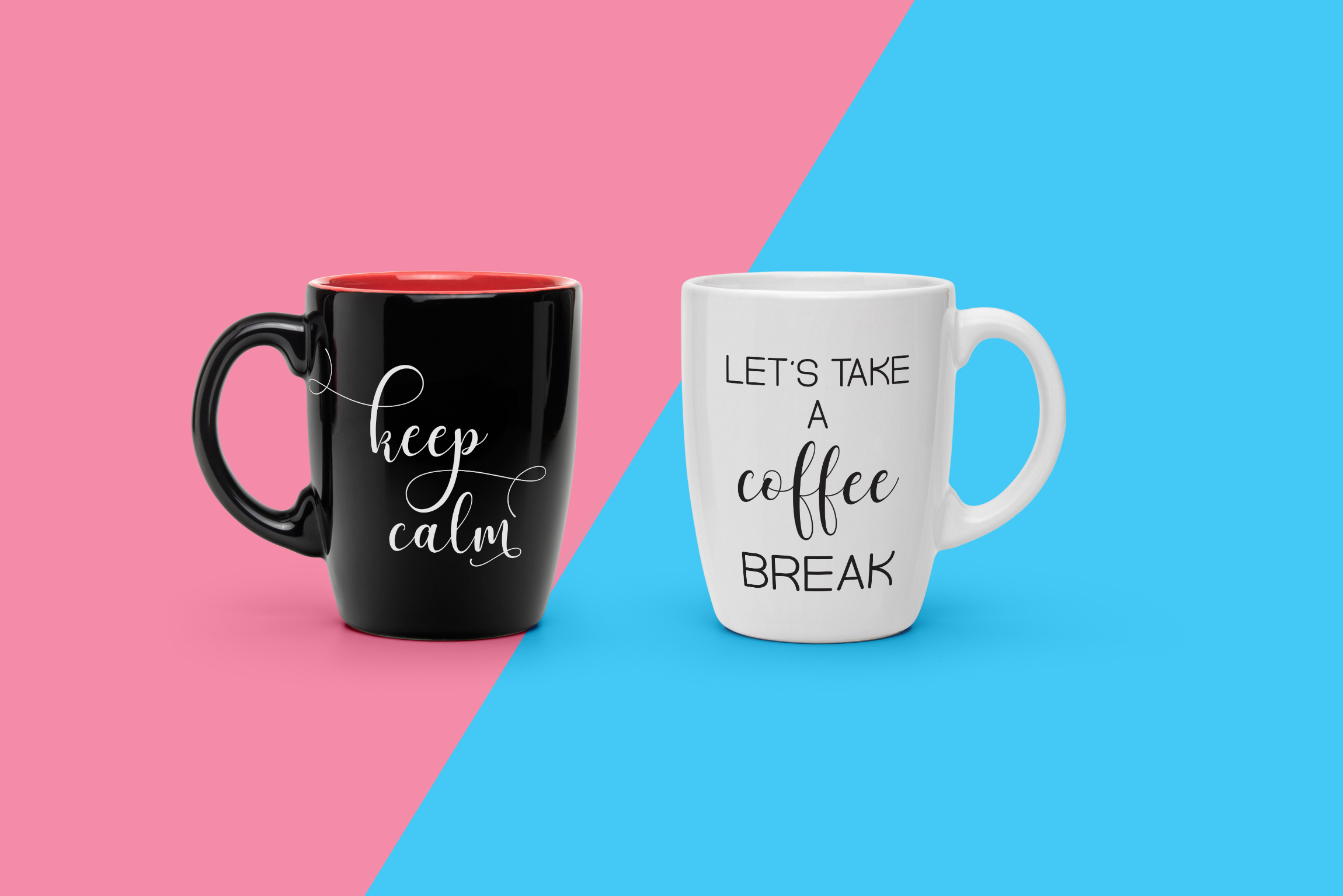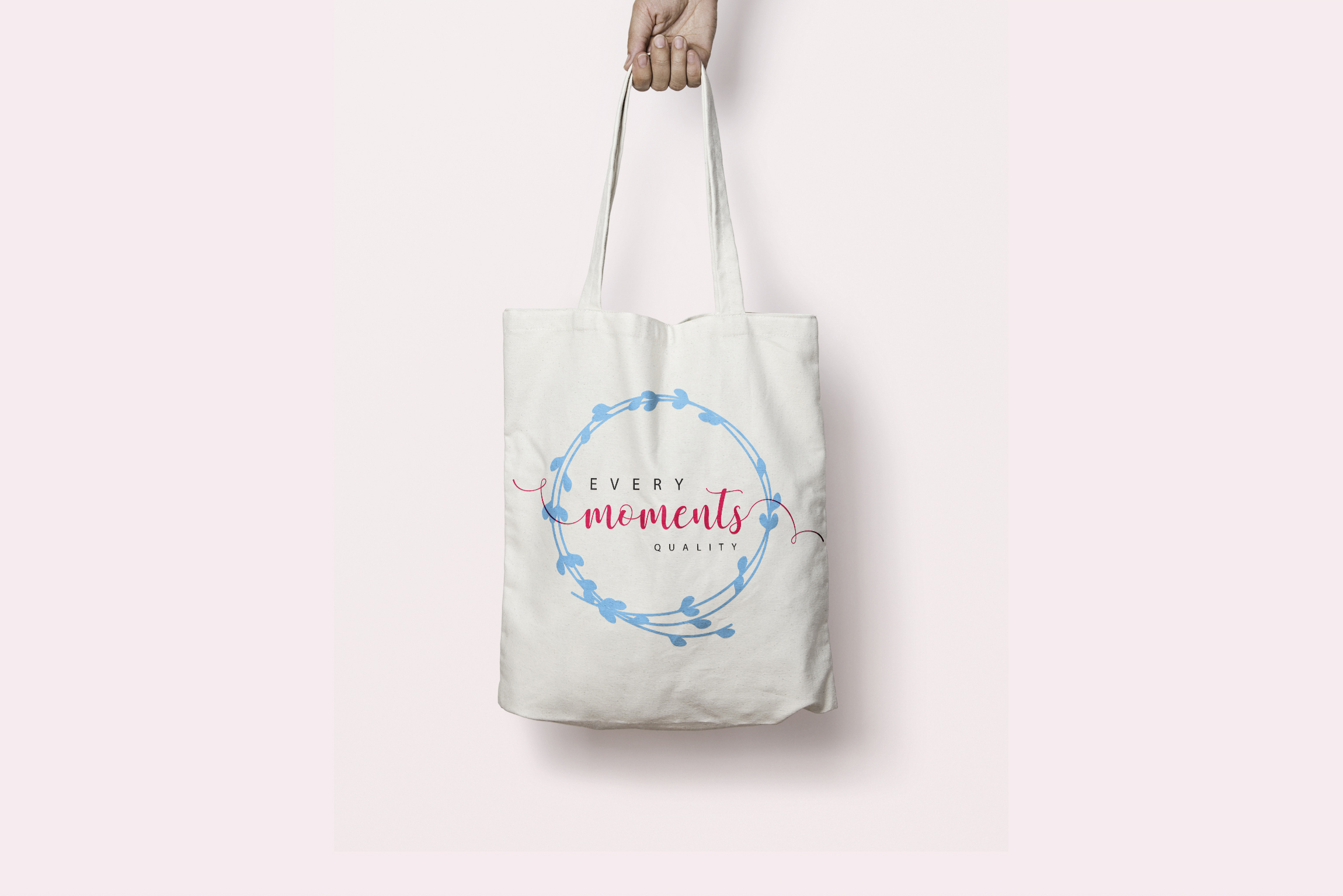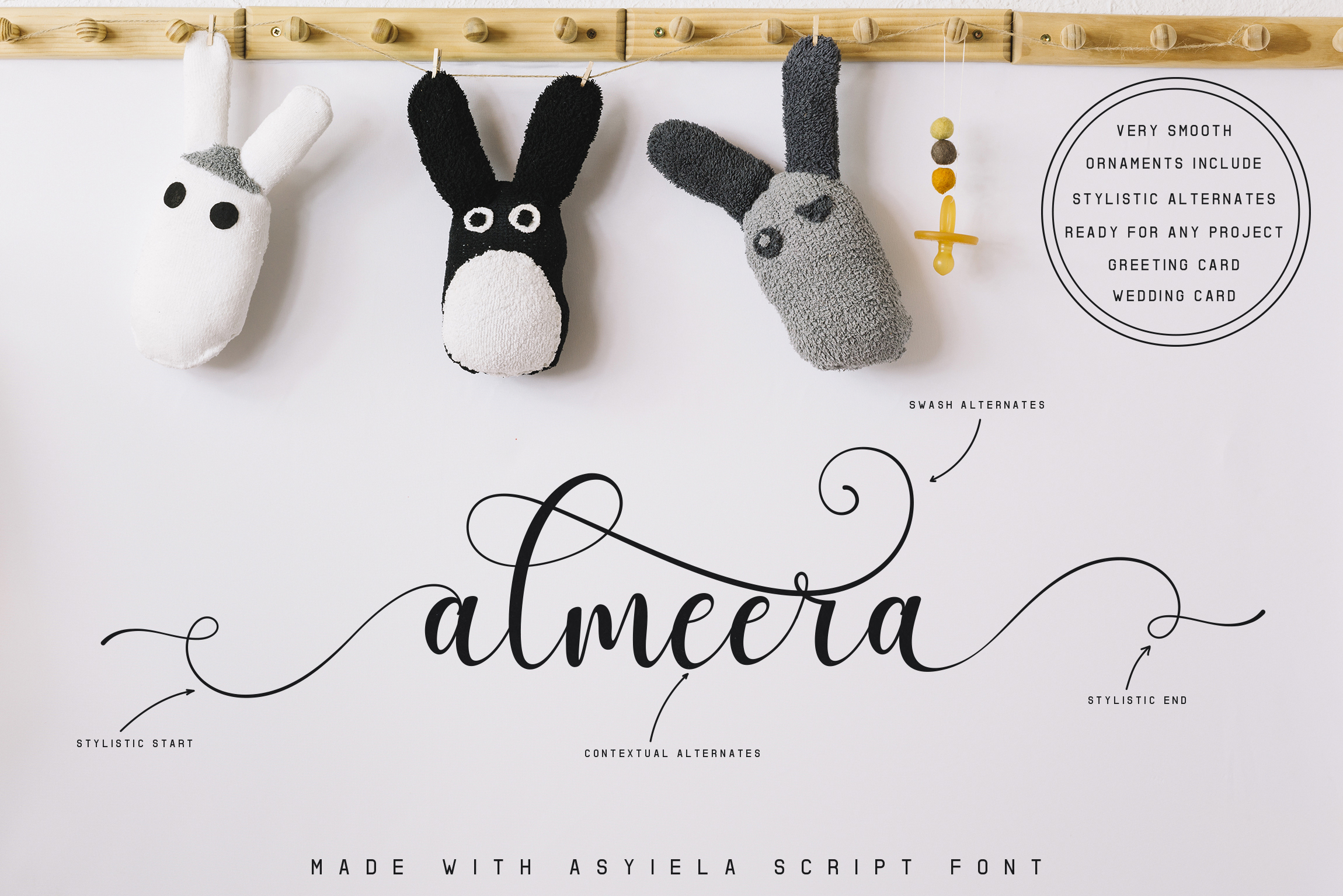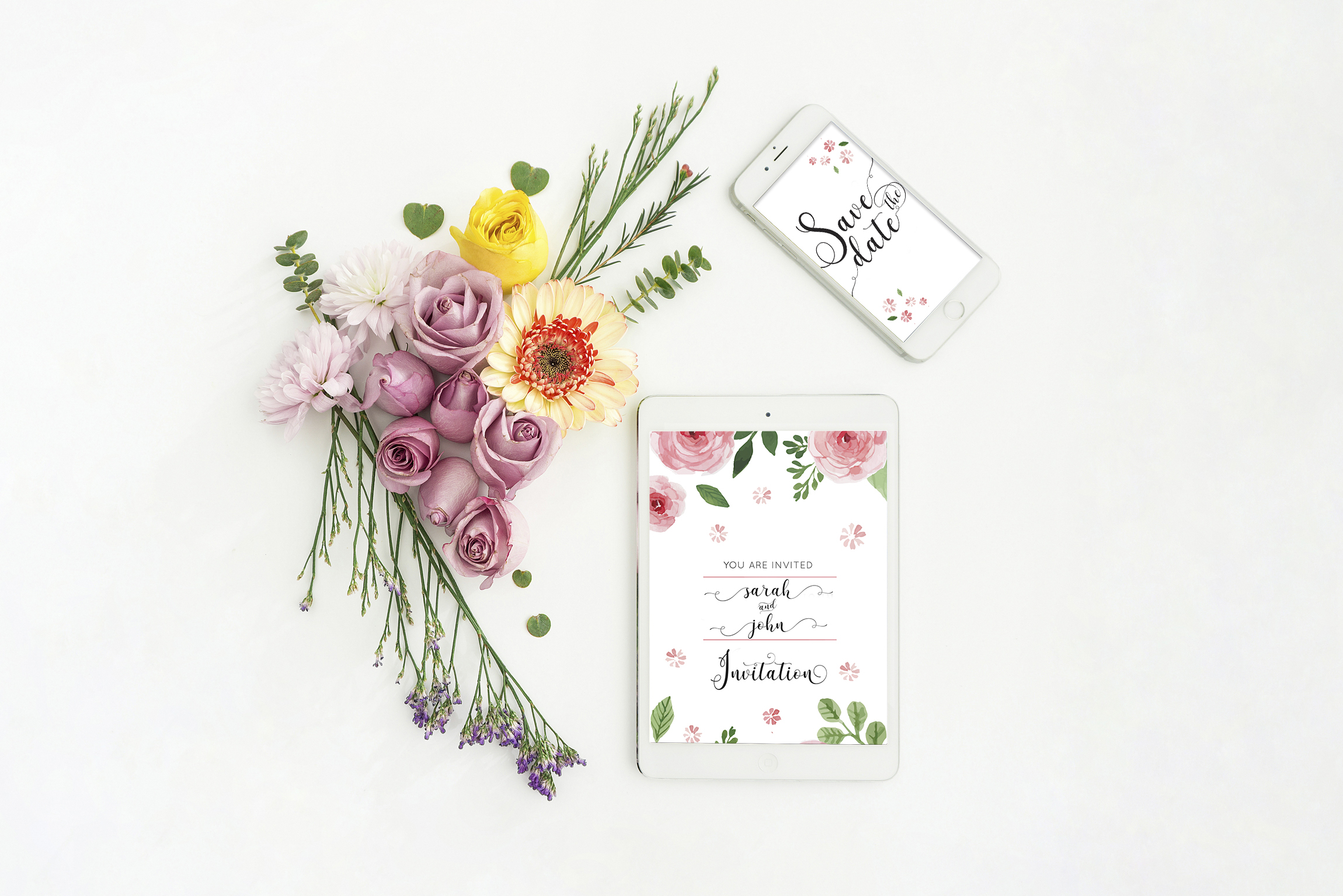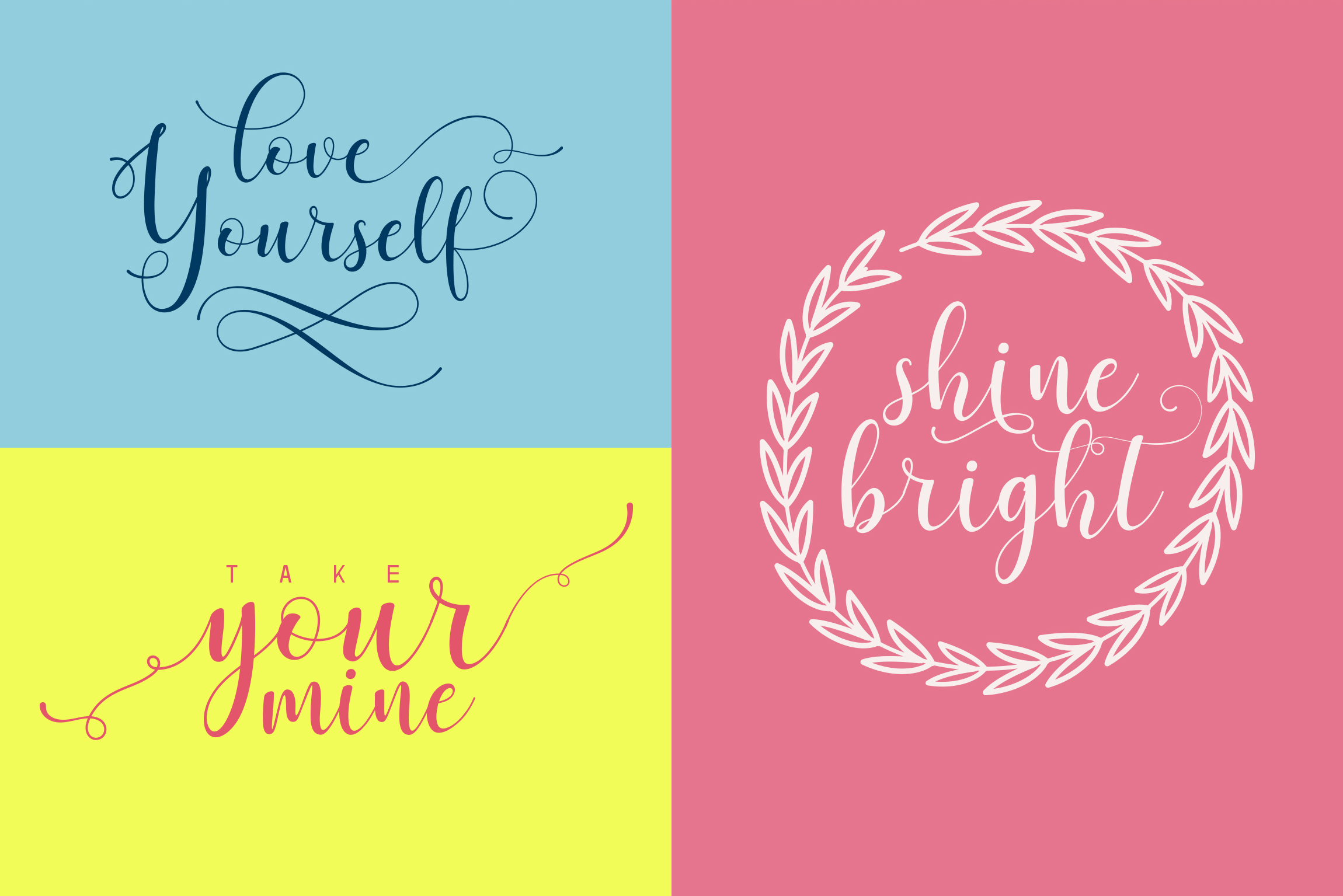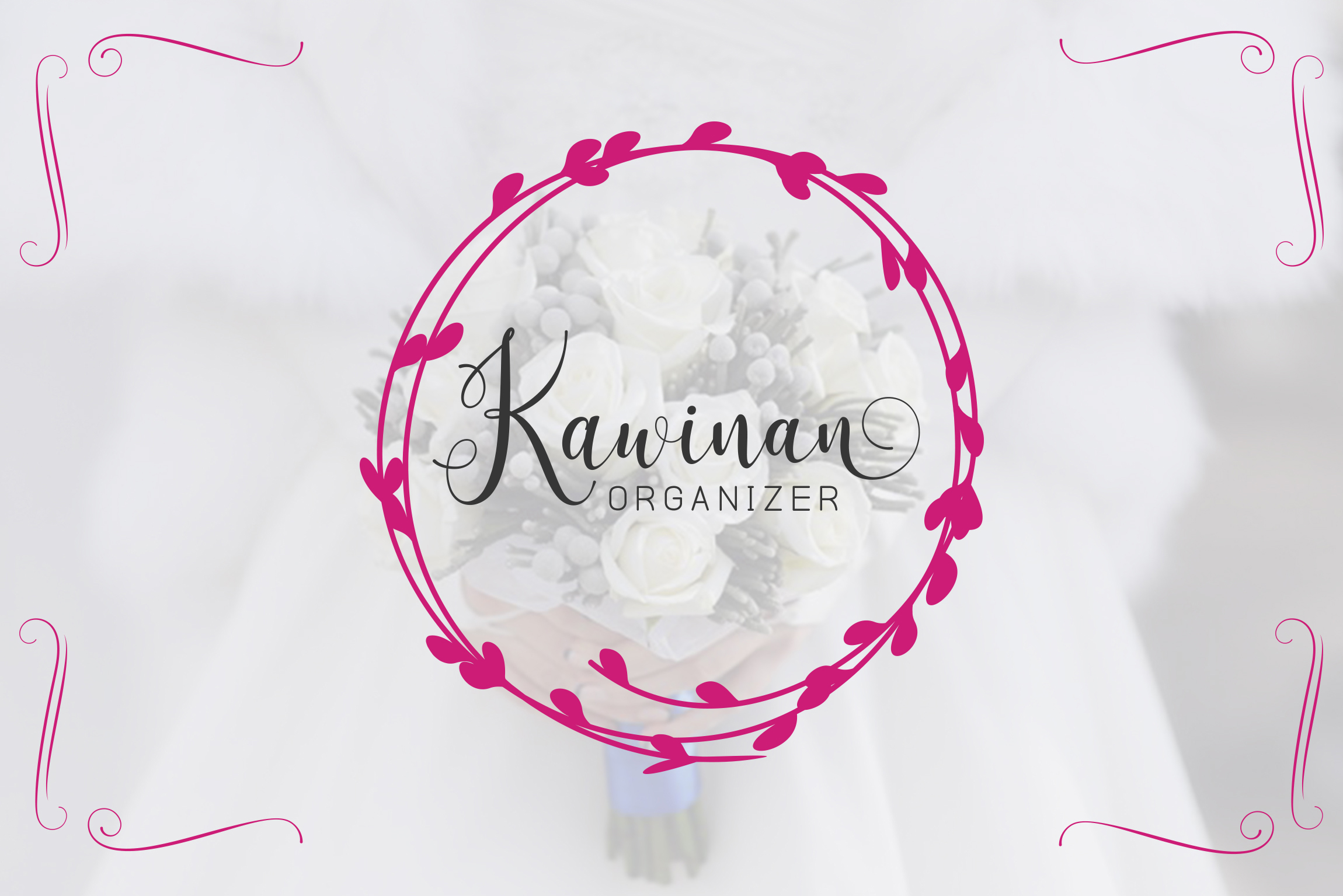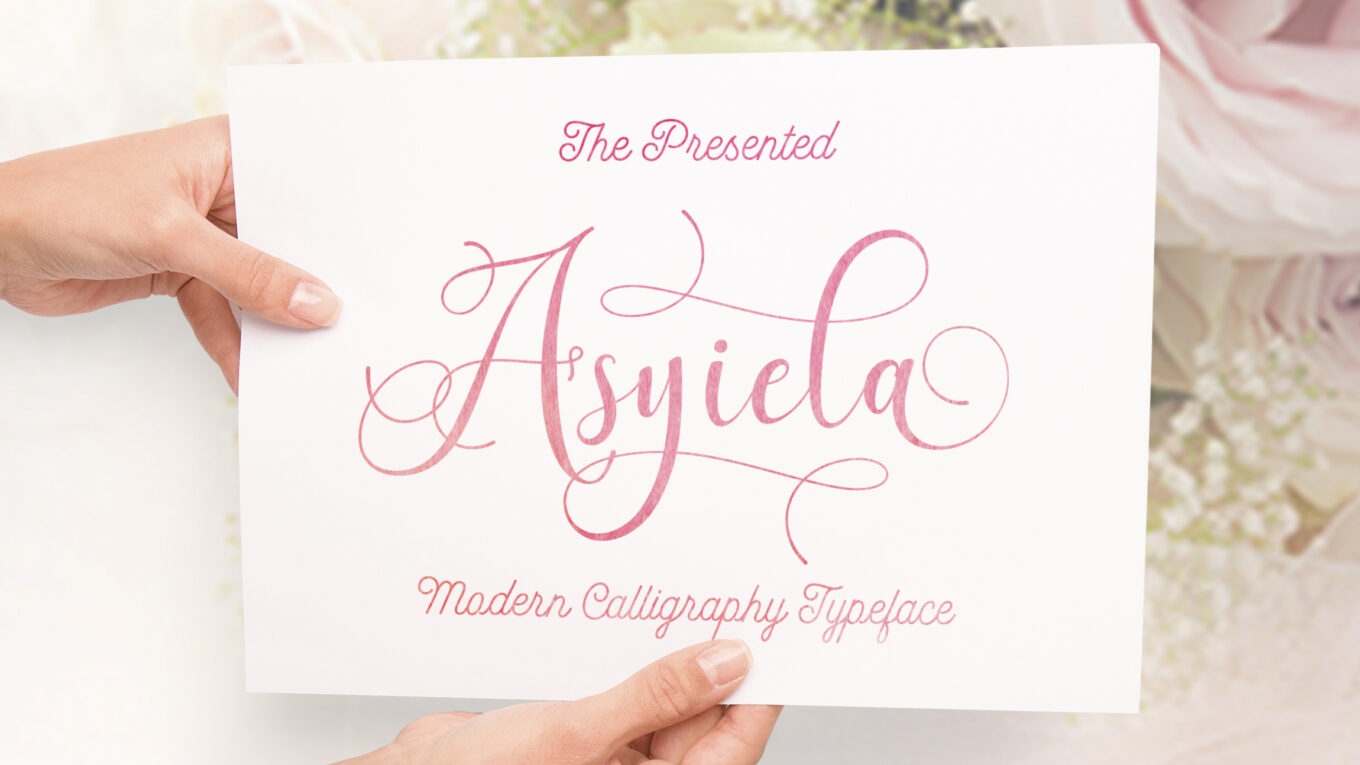
Introducing Asyiela Font: The Elegant and Modern Script Font for Creative Projects
Are you a designer or crafter looking for a beautiful and versatile font to elevate your creative projects? Look no further than Asyiela Font, a stunning script font that combines elegance and modernity. In this article, we’ll dive into the features and benefits of Asyiela Font, and explore how it can be used to add a touch of sophistication to a wide range of projects.
What is Asyiela Font?
Asyiela Font is a gorgeous script font that has been crafted with love and care. Its elegant and modern design makes it perfect for a variety of creative projects, from feminine designs to bold statements. This display script font is characterized by its flowing lines, beautiful swashes, and intricate details, which give it a unique and sophisticated look.
Key Features of Asyiela Font
So, what makes Asyiela Font so special? Here are some of its key features:
- Elegant and Modern Design: Asyiela Font boasts a beautiful, modern design that is both elegant and sophisticated.
- Feminine Touch: This font is perfect for feminine designs, adding a touch of elegance and refinement to any project.
- Tons of Extras: Asyiela Font comes with tons of extras, including swashes, ligatures, and alternate characters, giving you endless creative possibilities.
- Versatile: This font can be used for a wide range of projects, from branding and advertising to packaging and digital design.
Benefits of Using Asyiela Font
So, why should you choose Asyiela Font for your creative projects? Here are some benefits of using this amazing font:
- Adds Elegance and Sophistication: Asyiela Font adds a touch of elegance and sophistication to any project, making it perfect for high-end designs.
- Stand Out from the Crowd: With its unique and modern design, Asyiela Font helps your project stand out from the crowd and grab attention.
- Time-Saving: With Asyiela Font, you can save time and effort, as it comes with tons of extras and features that can be used to create stunning designs quickly.
How to Use Asyiela Font
Using Asyiela Font is easy and straightforward. Here are some tips on how to get the most out of this amazing font:
- Pair it with Other Fonts: Asyiela Font can be paired with other fonts to create stunning contrast and visual interest.
- Experiment with Swashes and Ligatures: Take advantage of the tons of extras that come with Asyiela Font, including swashes and ligatures, to add a personal touch to your designs.
- Use it for Headings and Titles: Asyiela Font is perfect for headings and titles, adding a touch of elegance and sophistication to any project.
In conclusion, Asyiela Font is a stunning script font that is perfect for designers and crafters looking to add a touch of elegance and sophistication to their creative projects. With its elegant and modern design, tons of extras, and versatility, Asyiela Font is a must-have for any designer or crafter looking to take their designs to the next level.